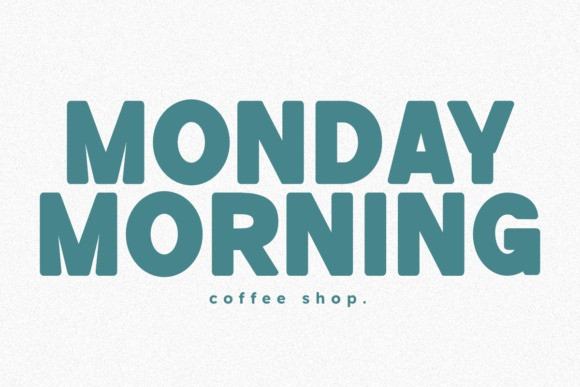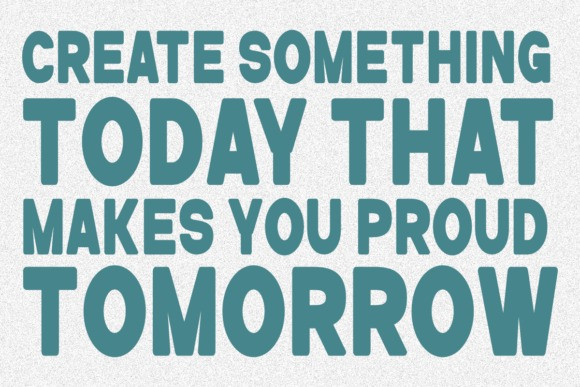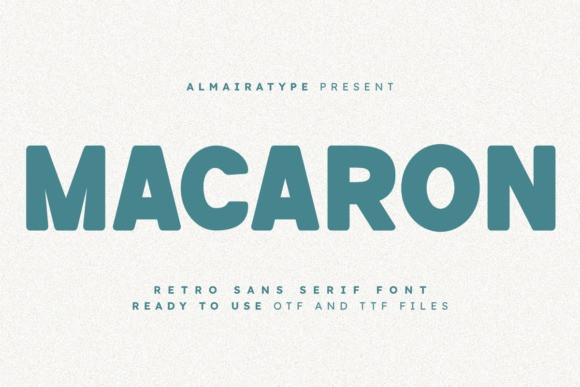
Macaron Font
Macaron Font is a bold retro sans serif font meticulously designed to bring a playful warmth and eye-catching vintage aesthetic to your modern creative projects. Featuring a perfectly balanced heavy weight, solid geometric structural alignment, and friendly soft-curved profiles, this typeface beautifully channels the nostalgic vibe of classic 70s and 80s display typography. It stands out as an exceptional tool for professional graphic designers, independent clothing brands, custom apparel creators, passionate crafters, and Print on Demand (POD) entrepreneurs aiming to achieve maximum audience conversion. Whether you are establishing a charming business brand identity, layouting trendy t-shirt merchandise, customizing unique product packaging, or producing high-impact social media headers, Macaron delivers top-tier legibility and a distinct professional look. Its ultra-clean vector outlines guarantee full technical compatibility with popular craft cutting software and vinyl cutting plotters like Cricut and Silhouette, offering a flawless, hassle-free weeding experience for personalized stickers, mugs, and DIY items. Boost your commercial design toolkit and creative project portfolios with the inviting, solid, and timeless character of the Macaron typeface.